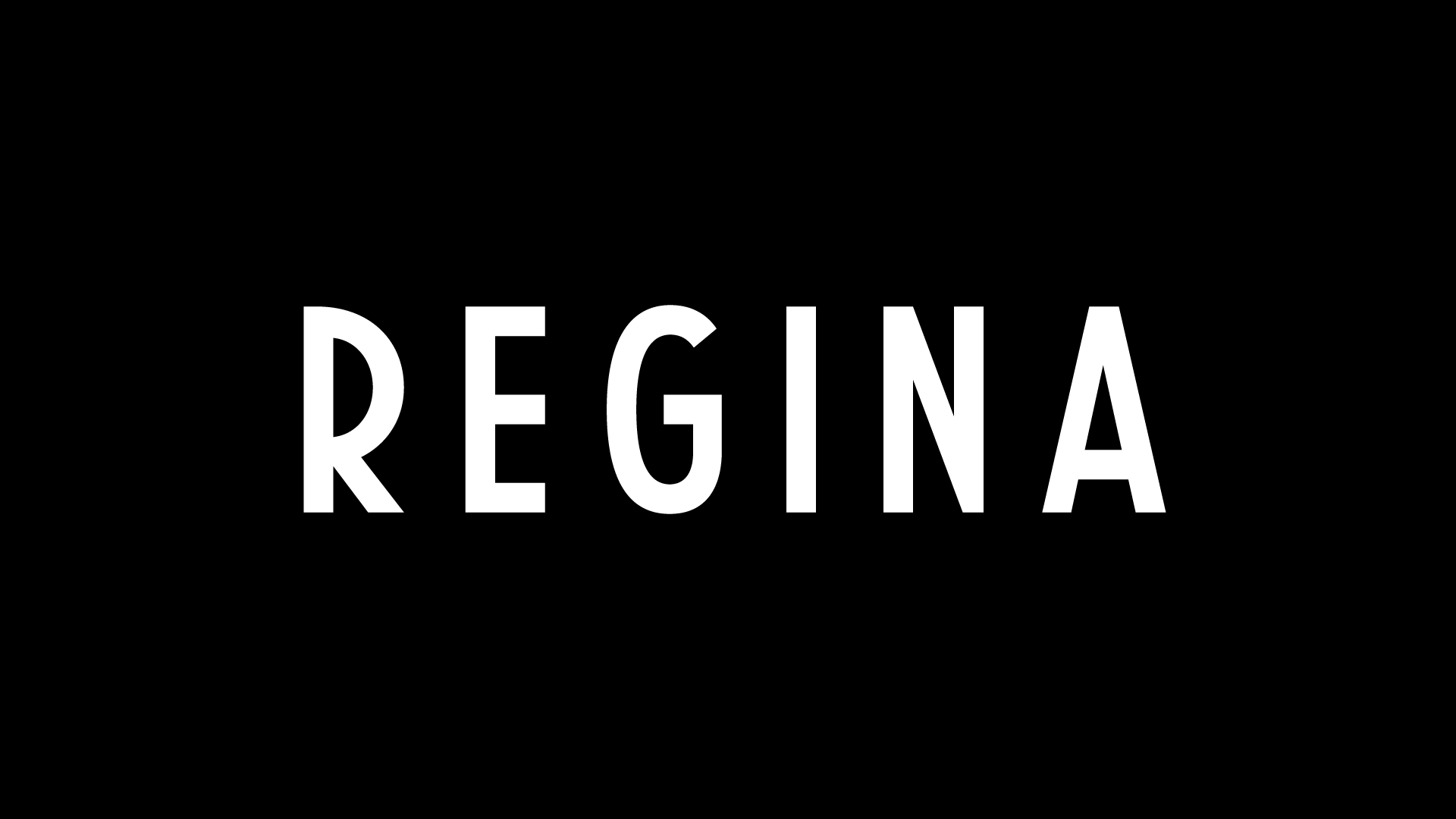
Regina
Logo for a bistro in Bratislava, Slovakia; a digital reconstruction of the historical sign of the original Café Regina from 1937. The elegant sans-serif logo faithfully follows the functionalist original and thus pays tribute to the cultural visual history of Bratislava.